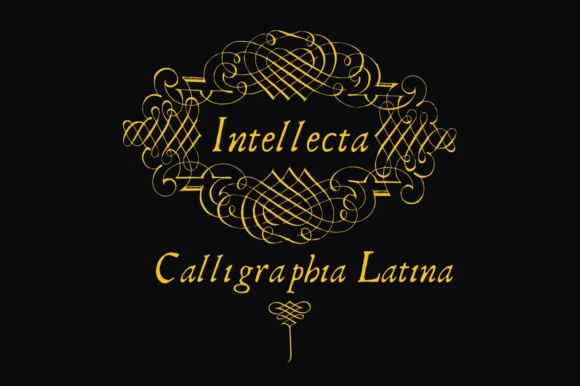
Discover the Elegance of Calligraphia Latina Font
Are you a designer or crafter looking for a unique and classic way to add a touch of elegance to your projects? Look no further than the Calligraphia Latina Font. This trendy and classic set of dingbat ornaments is perfect for those who want to add a worn-down yet ornate look to their designs.
What is Calligraphia Latina Font?
Calligraphia Latina is a beautifully crafted font that features a range of ornate and intricate designs. The font is made up of dingbat ornaments, which are decorative symbols used to add visual interest to text and designs. These ornaments have a classic looking appeal, with a worn-down yet ornate feel that adds a touch of sophistication to any project.
Key Features of Calligraphia Latina Font
- Classic and Trendy Design: The Calligraphia Latina Font features a unique blend of classic and trendy designs, making it perfect for a wide range of projects.
- Worn-Down yet Ornate Look: The font’s worn-down yet ornate look adds a touch of elegance and sophistication to any design.
- Dingbat Ornaments: The font features a range of dingbat ornaments, including borders, frames, and other decorative symbols.
Uses for Calligraphia Latina Font
The Calligraphia Latina Font is perfect for a wide range of projects, including:
- Graphic Design: Use the font to add a touch of elegance to your graphic designs, including brochures, flyers, and posters.
- Crafting: The font is perfect for crafters who want to add a personal touch to their projects, including scrapbooking, card making, and journaling.
- Wedding and Event Planning: Use the font to create beautiful wedding invitations, programs, and other event materials.
- Stationery and Gift Tags: Add a touch of elegance to your stationery and gift tags with the Calligraphia Latina Font.
Tips for Using Calligraphia Latina Font
Here are a few tips for using the Calligraphia Latina Font:
- Experiment with Different Sizes and Colors: Experiment with different sizes and colors to find the perfect look for your project.
- Combine with Other Fonts: Combine the Calligraphia Latina Font with other fonts to create a unique and interesting look.
- Use as a Background or Texture: Use the font as a background or texture to add depth and interest to your design.
The Calligraphia Latina Font is a beautifully crafted font that features a range of ornate and intricate designs. With its classic and trendy look, it’s perfect for a wide range of projects, from graphic design to crafting. Whether you’re looking to add a touch of elegance to your designs or create a unique and interesting look, the Calligraphia Latina Font is a great choice.
Overall, the Calligraphia Latina Font is a great choice for designers and crafters who want to add a touch of elegance and sophistication to their projects. With its classic and trendy look, it’s sure to be a popular choice for years to come.